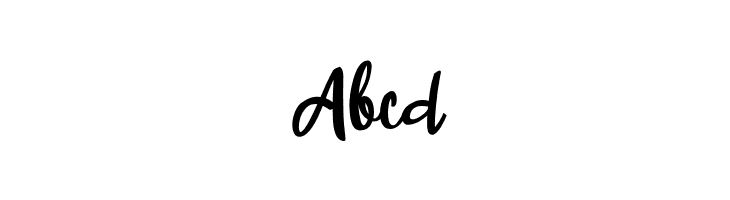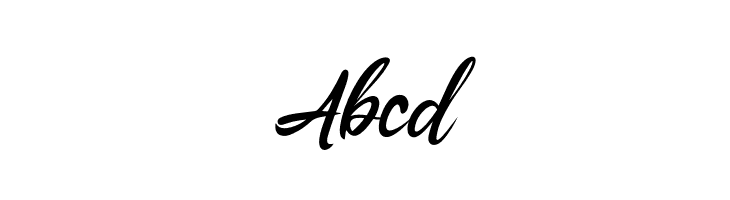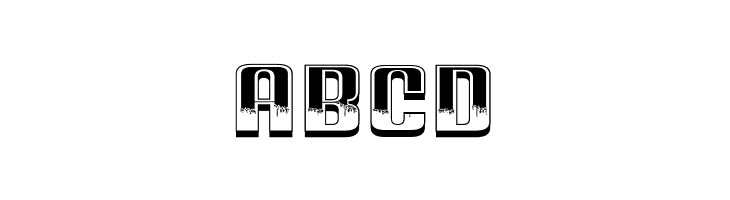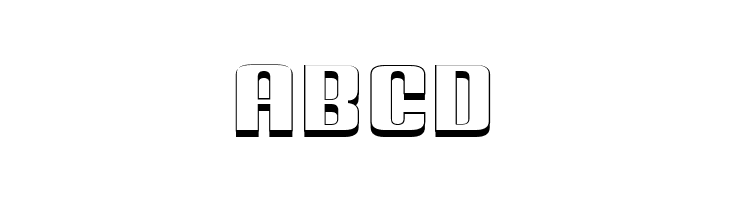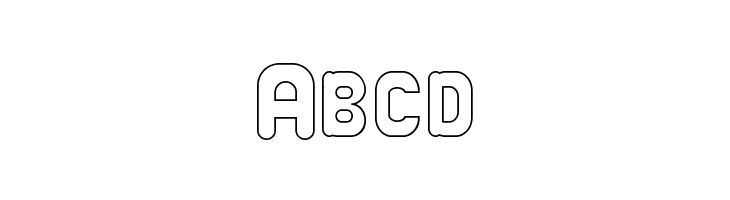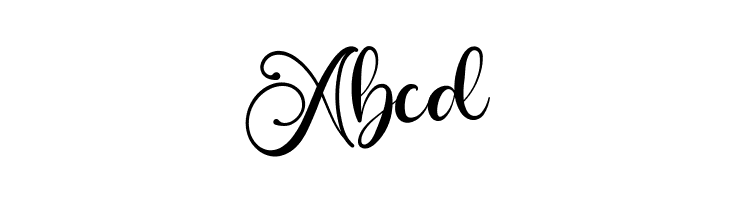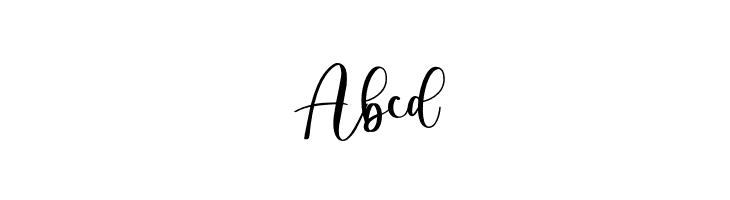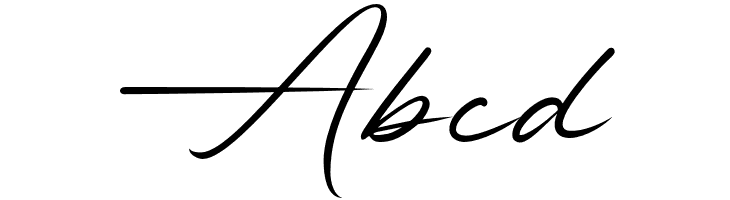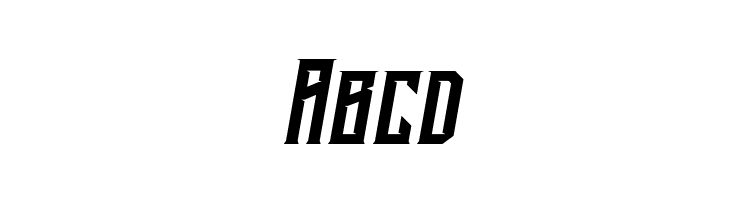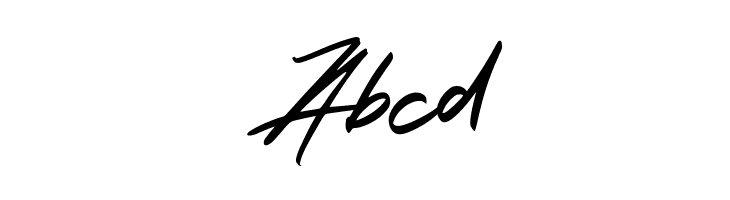
• alamsyah
A flowing script font with elegant curves and artistic flourishes.
• Alan Den
A bold, dynamic font with sharp, angular edges and a hand-drawn appearance.
• Alan-Font
• alana you
A cursive, handwritten font with elegant, flowing strokes.
• alandef
A modern, elegant script font with fluid strokes and decorative flourishes.
• Alander-Regular
An elegant cursive font with fluid, connected characters.
• Alangkah_
A bold, playful script font with dynamic curves and a handwritten feel.
• Alangkah_
A lively, flowing script font with bold, expressive strokes.
• Alanis Hand
• Alansky
A dynamic and elegant script font with bold, flowing letterforms.
• Alansky
A dynamic and flowing script font with elegant, cursive letterforms.
• Alantis FREE
A dynamic and fluid script font with elegant, flowing strokes.
• AlantisFREE
A dynamic and fluid script font with elegant, flowing letterforms.
• Alanya
A modern, geometric font with a tall, narrow, and consistent stroke design.
• Alaqua
A bold, rounded font with a modern and playful style.
• Alaqua Demo
A bold, rounded font with a modern and playful style.
• Alaqua Demo Italic
A playful, rounded, and italic font with bold strokes and friendly appeal.
• Alaqua Demo Outline
A modern, geometric outline font with bold, clean lines.
• Alaqua Italic
A playful, rounded, and slightly italic font with a modern and friendly style.
• Alaqua Outline
A modern, geometric outline font with clean lines and rounded edges.
• Alarate Script Personal Use
An elegant script font with flowing, intricate loops and artistic flair.
• AlardoDemo-Italic